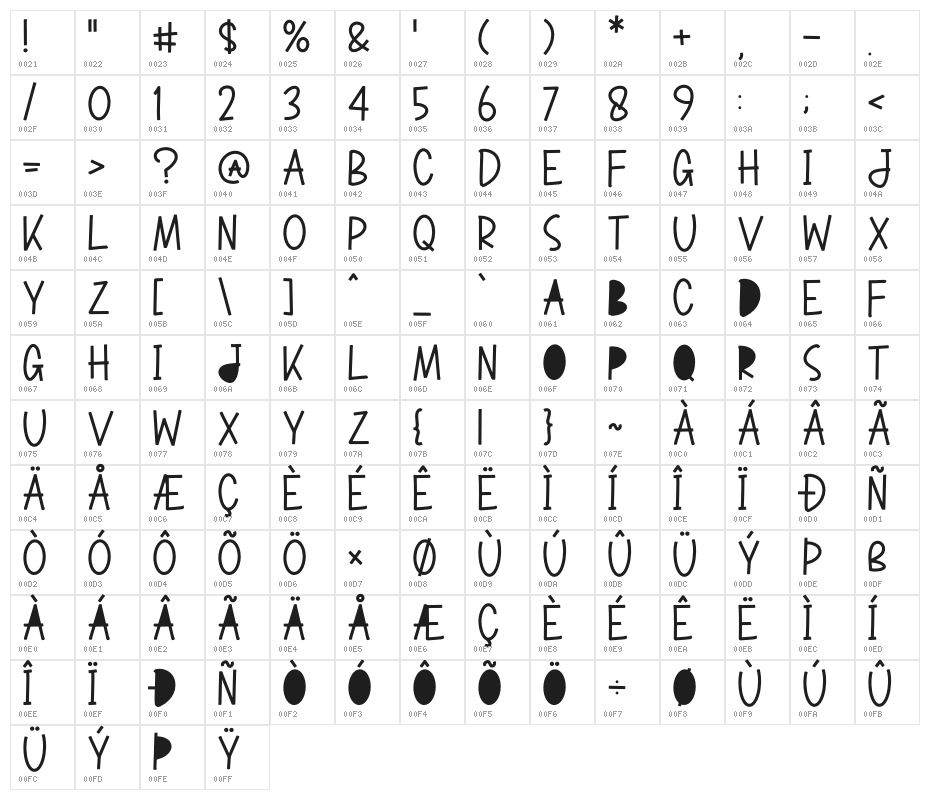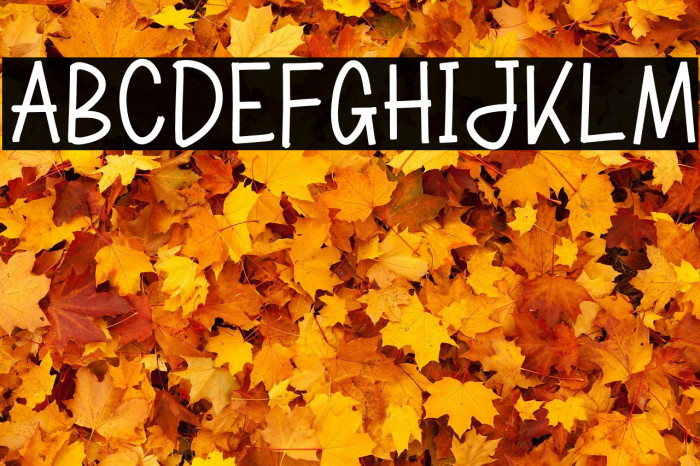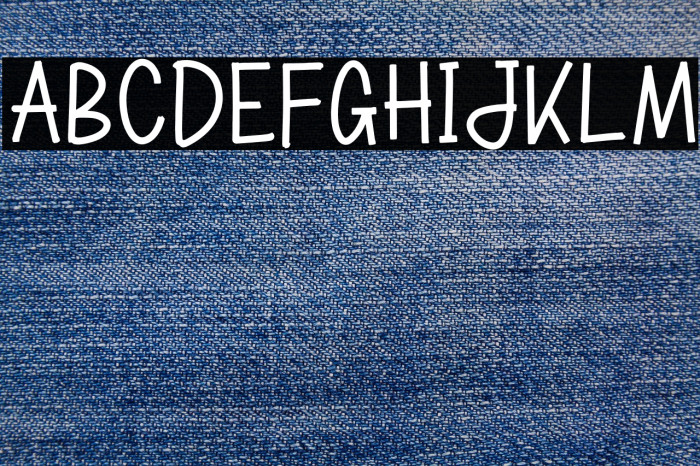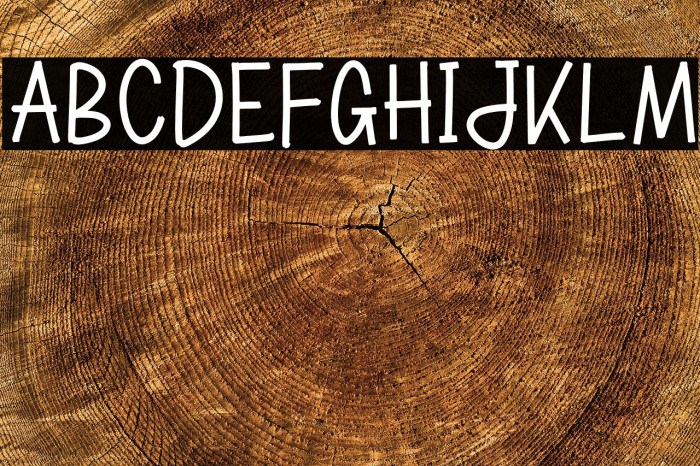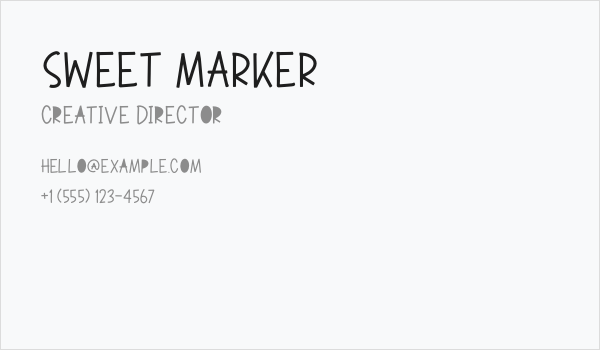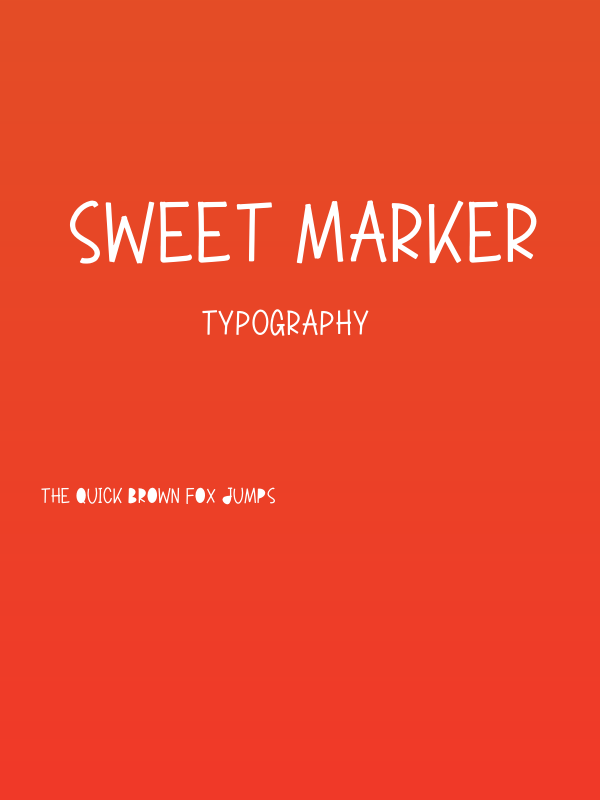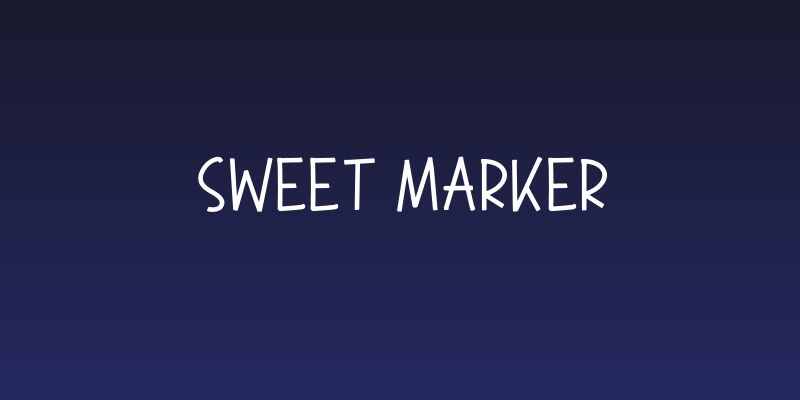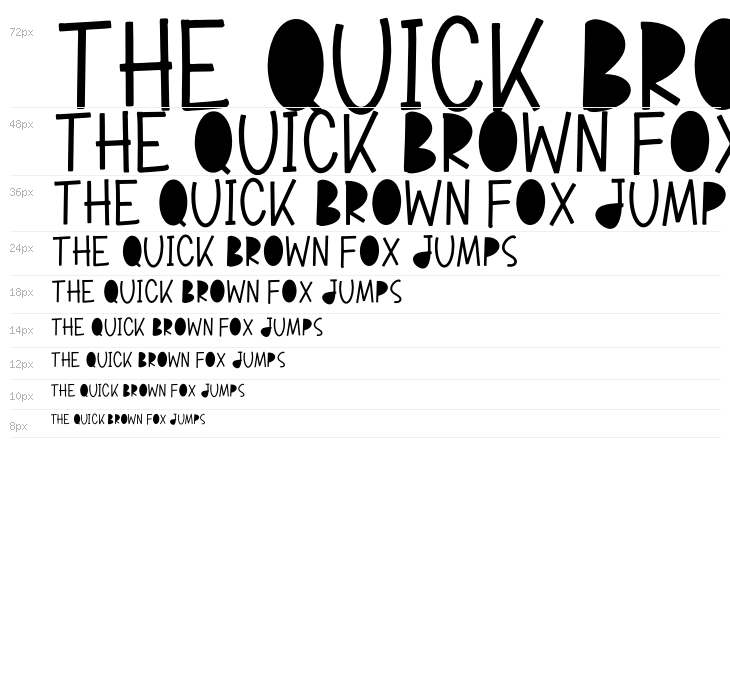
SWEET MARKER Font
SWEET MARKER Description
This playful and bold font features a hand-drawn, marker-like style with a casual and friendly appearance. The uppercase and lowercase letters are slightly irregular, adding to its charm and uniqueness. The numbers and special characters maintain the same whimsical style, making it versatile for various creative projects. The strokes are consistent in thickness, providing a uniform look across all characters. This font is perfect for designs that require a personal touch or a fun, informal vibe.
| Proposed Projects | Ideal for children's books, greeting cards, posters, and playful branding projects. |